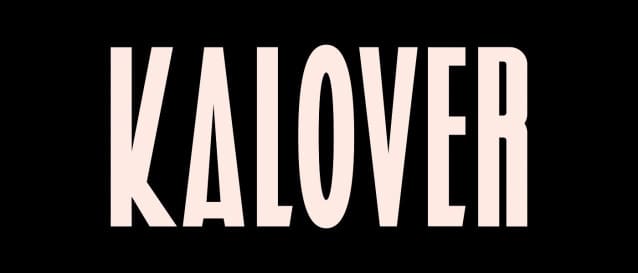
Kalover Font
Kalover Font is a bold, elevated sans-serif font designed to make a powerful statement. With its strong lines and assertive character, Kalover Font is ideal for projects that demand both impact and clarity. Whether you’re working on sports-related designs or modern branding, Kalover delivers a commanding presence that enhances the energy and dynamism of your visuals. Its tall and confident structure ensures readability while maintaining a sleek and contemporary aesthetic, making it a versatile choice for a wide range of creative applications.